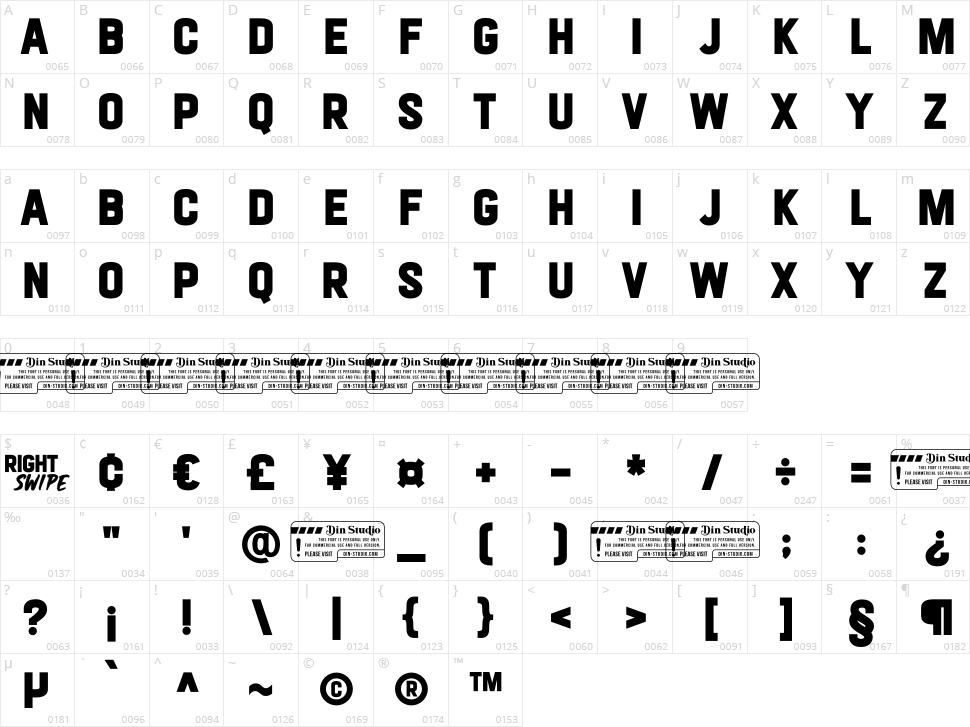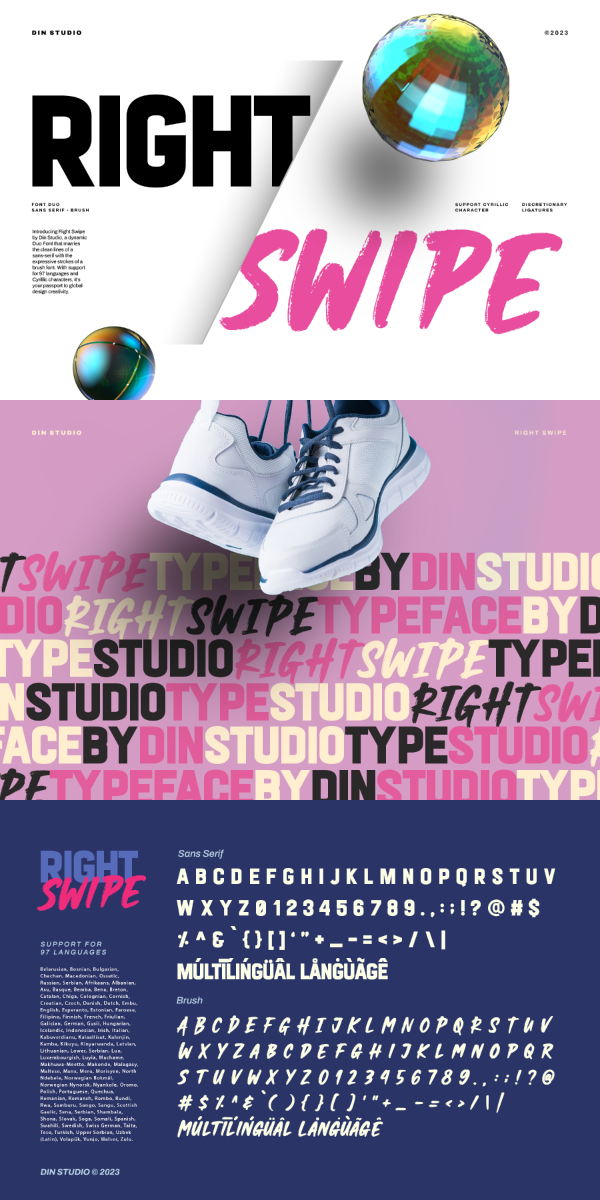
Right Swipe is a fantastic sans serif brush font duo. The sans serif font, in the Right Swipe, is the epitome of simplicity and elegance. Designed in uppercase, it boasts clean lines and a minimalist aesthetic, making a versatile look. This sans serif typeface is all about timeless sophistication and modern appeal.